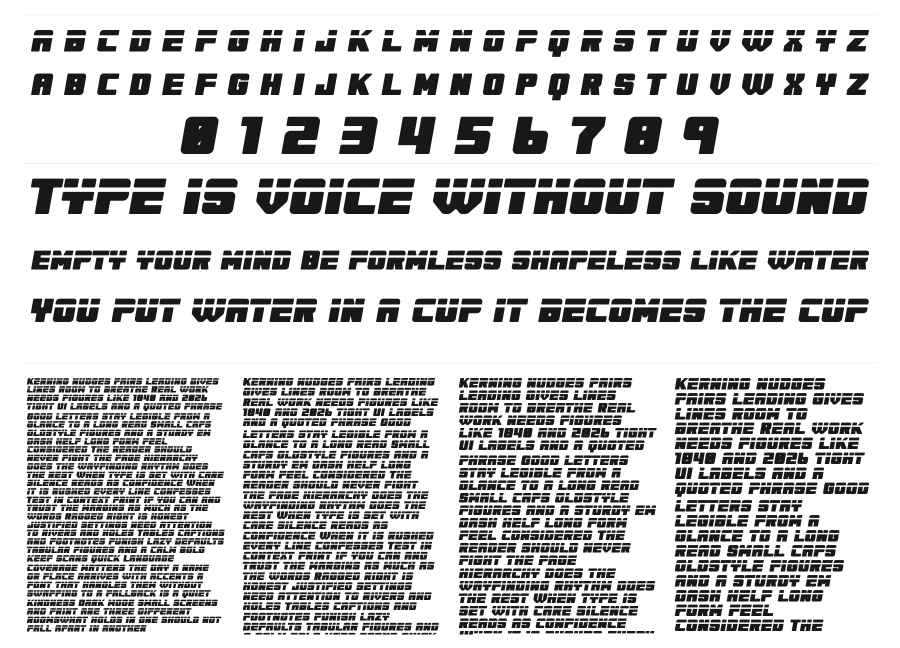
Vegapunk
Vegapunk is a bold italic display font built around thick blocky strokes punched through with horizontal cutout slots that evoke racing numbers and vintage speedway signage. The steep slant and dense square proportions push the sense of forward motion. It fits naturally in motorsport branding, sports game UI, and any project that needs a retro high-speed attitude.